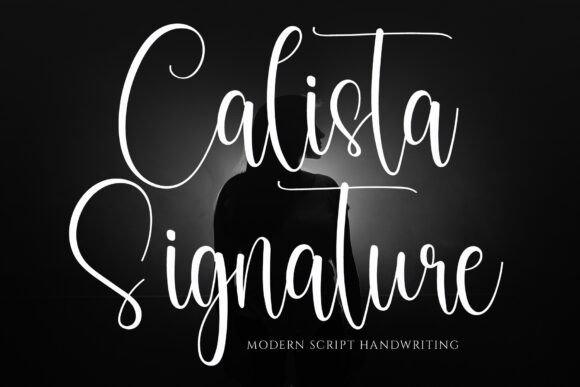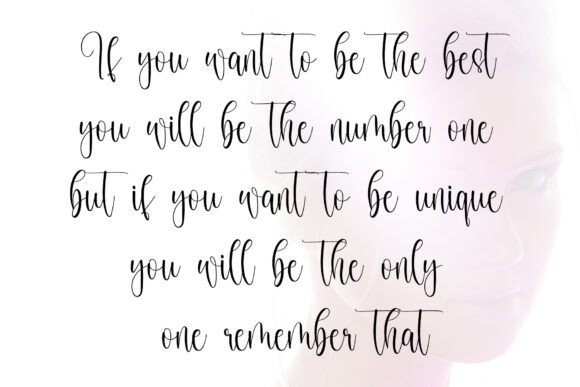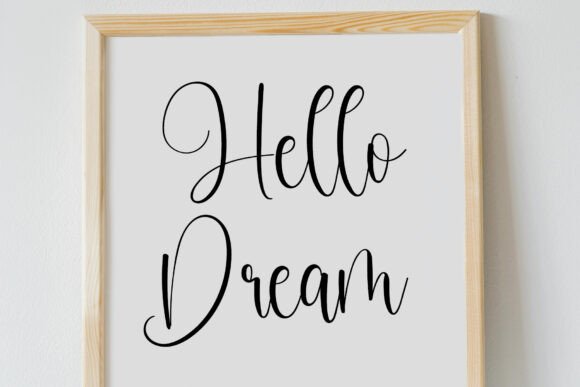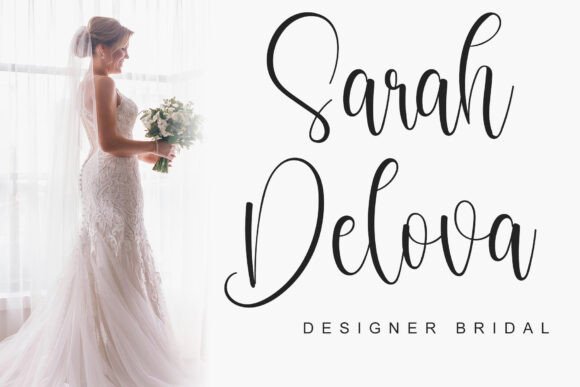
Calista Signature Font
About the Calista Signature Font
Introducing the Calista Signature Font, a beautifully crafted typeface designed to elevate your creative projects. Calista Signature is a beautifully crafted display handwriting font that blends elegance with a modern, artistic touch. Its flowing strokes and well-balanced curves create a sophisticated yet approachable feel, making it the perfect font choice for those who want to add a touch of class and personality to their designs.
Calista Signature excels as a display font for headlines, logos, and short-form text in branding projects, invitations, or social media graphics. Its elegant curves lend themselves well to packaging design for luxury goods or products emphasizing sophistication. Avoid using it for body text or large blocks of text; its decorative nature makes it unsuitable for readability in extended passages or UI elements.
This font’s personality is sophisticated yet approachable, conveying a sense of both elegance and approachability. It works best for brands aiming for a classic yet modern image, luxury products, or projects requiring a touch of handwritten charm without sacrificing professionalism.
Pair Calista Signature with a clean sans-serif like Montserrat for a contemporary feel, or a classic serif like Garamond for a more traditional balance. For a touch of playful contrast, consider pairing it with a slightly more informal script font.
Calista Signature Font Usage Examples
Calista Signature Font Example